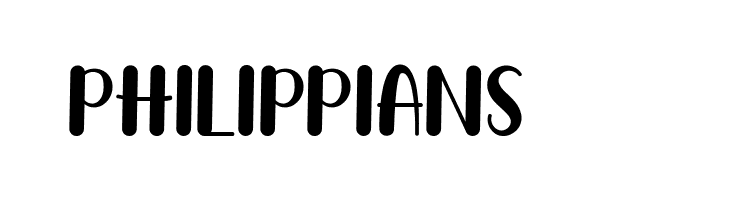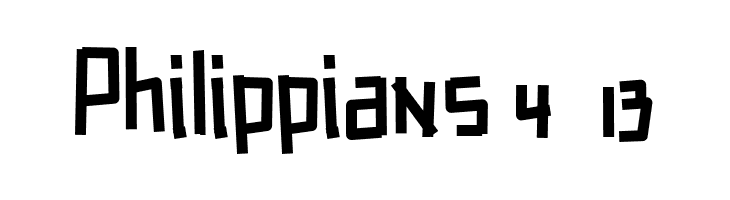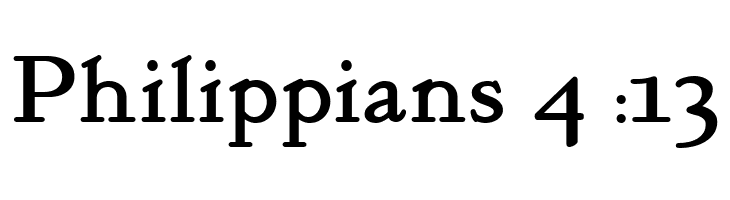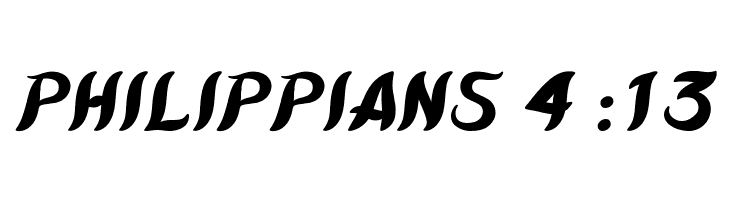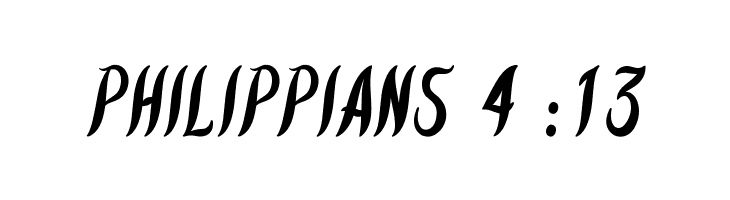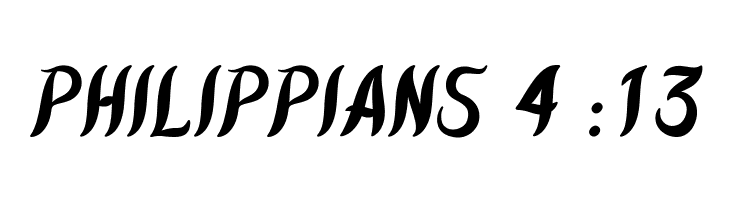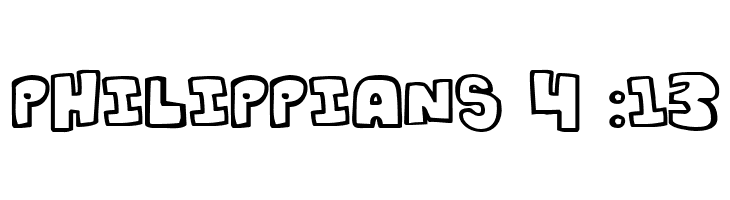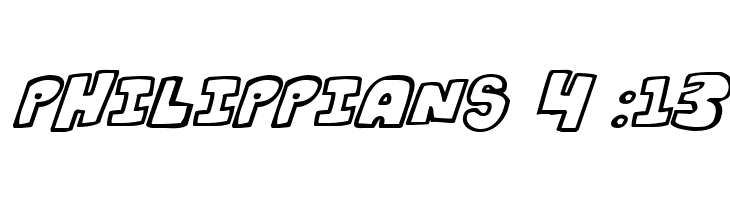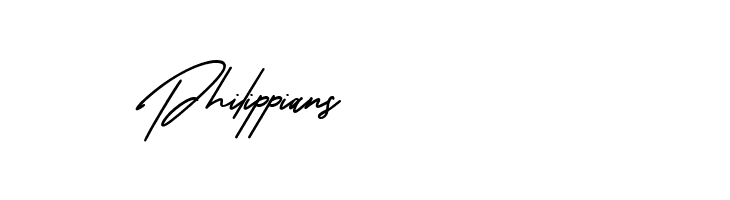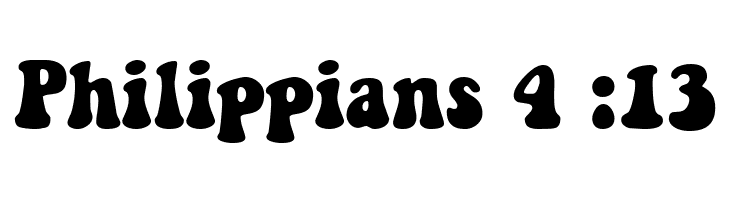
• KarlKrausCondensedOblique
A condensed oblique font with sleek, elongated letterforms and moderate stroke contrast.
• KarlKrausOblique
A bold, oblique font with high contrast and tight spacing, perfect for dynamic designs.
• KarlKrausSans
A bold, vintage-style font with consistent stroke width and a slightly condensed appearance.
• KarlKrausSansCondensed
A tall, narrow, and modern condensed font with clean lines.
• KarlKrausSansCondensedOblique
A sleek, condensed oblique font with consistent stroke weight and dynamic style.
• KarlKrausSansOblique
A bold, oblique font with a modern and dynamic style.
• Karma Future
• Karstar Free Regular
A dynamic, cursive script font with fluid, connected strokes.
• Kartbones Free Regular
An elegant, flowing script font with interconnected, cursive strokes.
• Kartoons
A playful, bold font with thick, rounded letters and a cartoonish style.
• Kartoons Italic
A bold, cartoonish italic font with outlined characters and a playful style.
• Kasa Green Free Regular
( Fonts by Maulana Creative )
A bold, rounded, and modern font with a playful and approachable style.
• Kasquiwane St
• Kasuki Hand Bold
A bold, handwritten font with a playful and casual style.
• Kasuki Hand Light
A playful, handwritten font with smooth, rounded edges and consistent stroke thickness.
• Kasuki Hand Normal
A playful, handwritten font with rounded, consistent strokes and a casual vibe.
• katakana tfb
A bold, modern font with clean, geometric lines and consistent stroke thickness.
• Kato
• Katrins
A playful, casual handwritten font with smooth, flowing lines.
• Kavelry
( AbdulMakesFonts )
• Kawit Free Cnd Italic
A bold, italicized, and condensed decorative font with dynamic strokes.
• Kawit Free Ext Italic